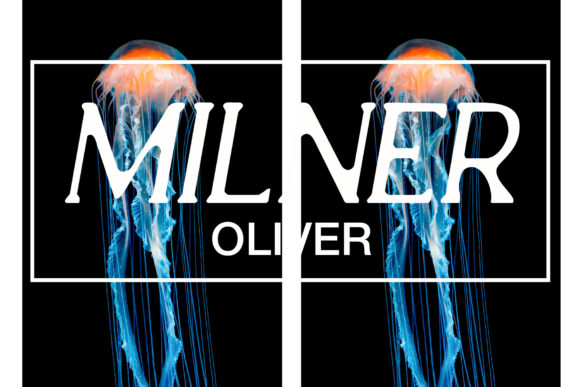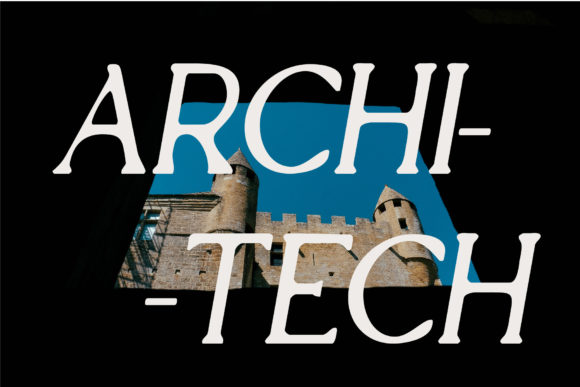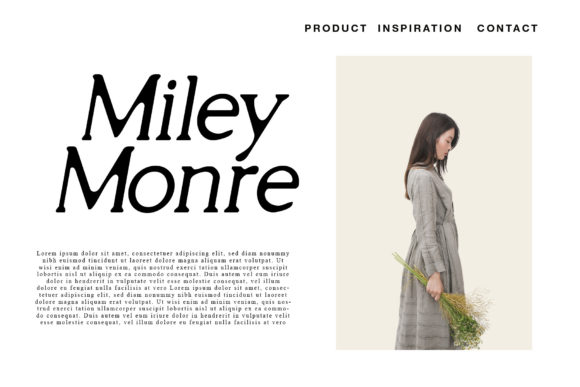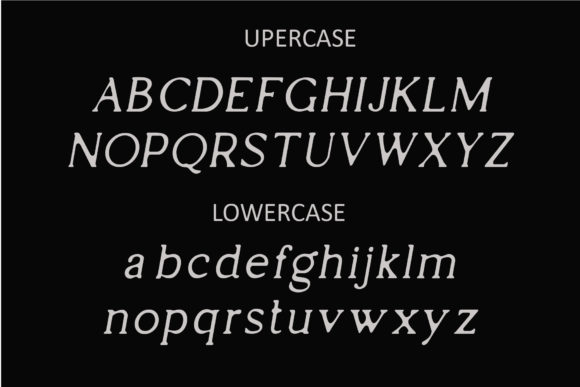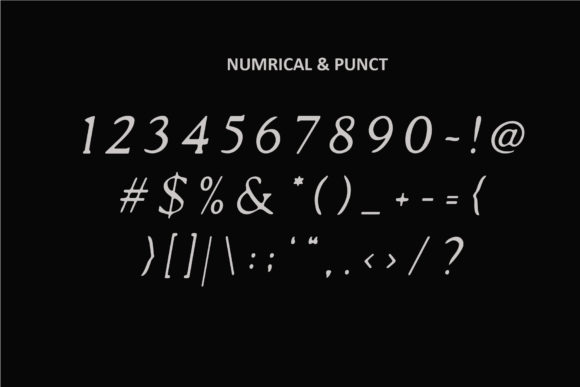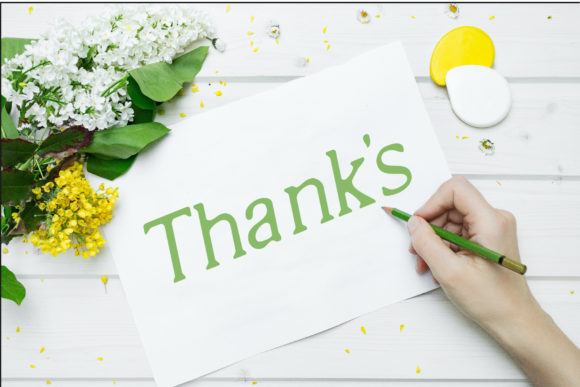
Introducing Copch Font: The Ultimate Minimalistic Serif Font for Designers
In the world of typography, a good font can make all the difference in the success of a design project. For designers and crafters, finding the perfect font that is both versatile and visually appealing can be a daunting task. However, if you’re looking for a font that checks all the right boxes, look no further than Copch Font. In this article, we’ll dive into the world of Copch Font, exploring its features, benefits, and uses, and why it’s quickly becoming a favorite among designers.
What is Copch Font?
Copch Font is a minimalistic and adaptable serif font that has been designed to be suitable for a wide variety of designs. Its neat and simple style makes it an excellent choice for designers who want to add a touch of elegance and sophistication to their work. Whether you’re working on a branding project, a website, or a craft project, Copch Font is the perfect choice.
Key Features of Copch Font
So, what makes Copch Font so special? Here are some of its key features:
- Minimalistic design: Copch Font has a clean and simple design that makes it easy to read and versatile for various design applications.
- Serif style: The font features a classic serif style that adds a touch of sophistication and elegance to any design.
- Adaptable: Copch Font is designed to be adaptable, making it suitable for a wide range of design projects, from headings and titles to body text.
- Neat and simple: The font’s neat and simple style makes it easy to pair with other fonts and design elements.
Benefits of Using Copch Font
So, why should you choose Copch Font for your next design project? Here are some benefits of using this amazing font:
- Versatility: Copch Font is versatile and can be used for a wide range of design projects, from branding and advertising to web design and crafting.
- Elegance: The font’s classic serif style and minimalistic design add a touch of elegance and sophistication to any design.
- Readability: Copch Font is easy to read, making it perfect for body text and other applications where readability is crucial.
- Easy to pair: The font’s neat and simple style makes it easy to pair with other fonts and design elements.
Use Cases for Copch Font
Copch Font is a versatile font that can be used for a wide range of design projects. Here are some use cases where Copch Font excels:
- Branding and advertising: Use Copch Font to create elegant and sophisticated branding materials, such as logos, business cards, and brochures.
- Web design: Copch Font is perfect for web design projects, including website headers, titles, and body text.
- Crafting and DIY projects: Add a touch of elegance to your crafting and DIY projects, such as handmade cards, invitations, and labels.
- Print design: Use Copch Font for print design projects, such as posters, flyers, and booklets.
In conclusion, Copch Font is an excellent choice for designers and crafters looking for a minimalistic and adaptable serif font. Its neat and simple style, versatility, and elegance make it perfect for a wide range of design projects. Whether you’re working on a branding project, a website, or a craft project, Copch Font is sure to become your go-to font. So, why wait? Try Copch Font today and take your designs to the next level!